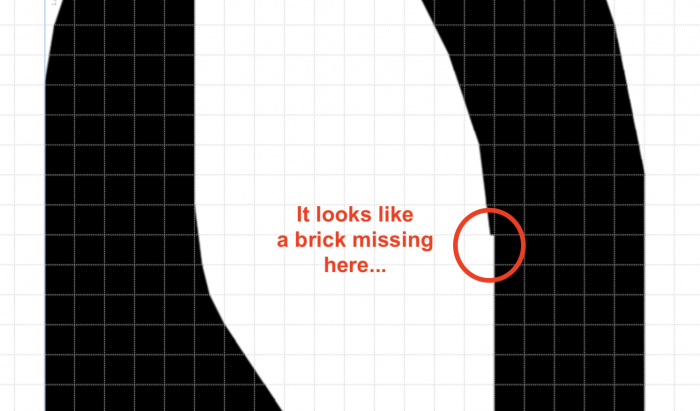
Oh wow!
Too damn cool..
Stunning. Can’t even decide on a favourite character here. :)
What a great handmade feeling! So cool!
Central right part of the A, sorry.
Congratulations! FontStruct Staff have deemed your FontStruction worthy of special mention. “Venera” is now a Top Pick.
An excellent font and a well deserved Top Pick!
Congratulations. It is very pretty Venus. Its so smooth
This has a lovely calligraphic feel to it and the diagonal stress works well.